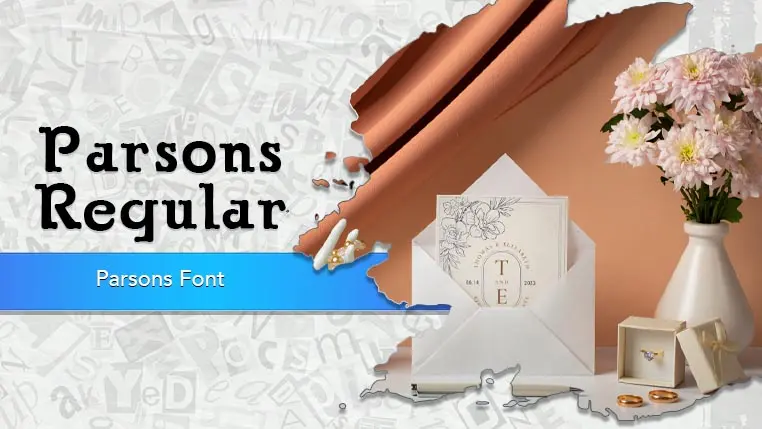
The Parsons font family may be ideal for you if you enjoy working on an artistic design project. The lively, expressive look of this typeface, which was created by Typographer Mediengestaltung, makes it ideal for Branding, Logos, Invitations and Certificates. Its distinctive letterforms and potential for dramatic ascenders/descenders make it excellent for eye-catching headlines in posters, book covers, magazine spreads, and advertisements. and other light-hearted visual projects.
Regular, Alternate, Shadow are the three primary font styles of the Parsons font family. You may build dynamic, visually appealing text layouts with the distinct flair that each style offers. With crisp, readable lines and a relaxed tone.